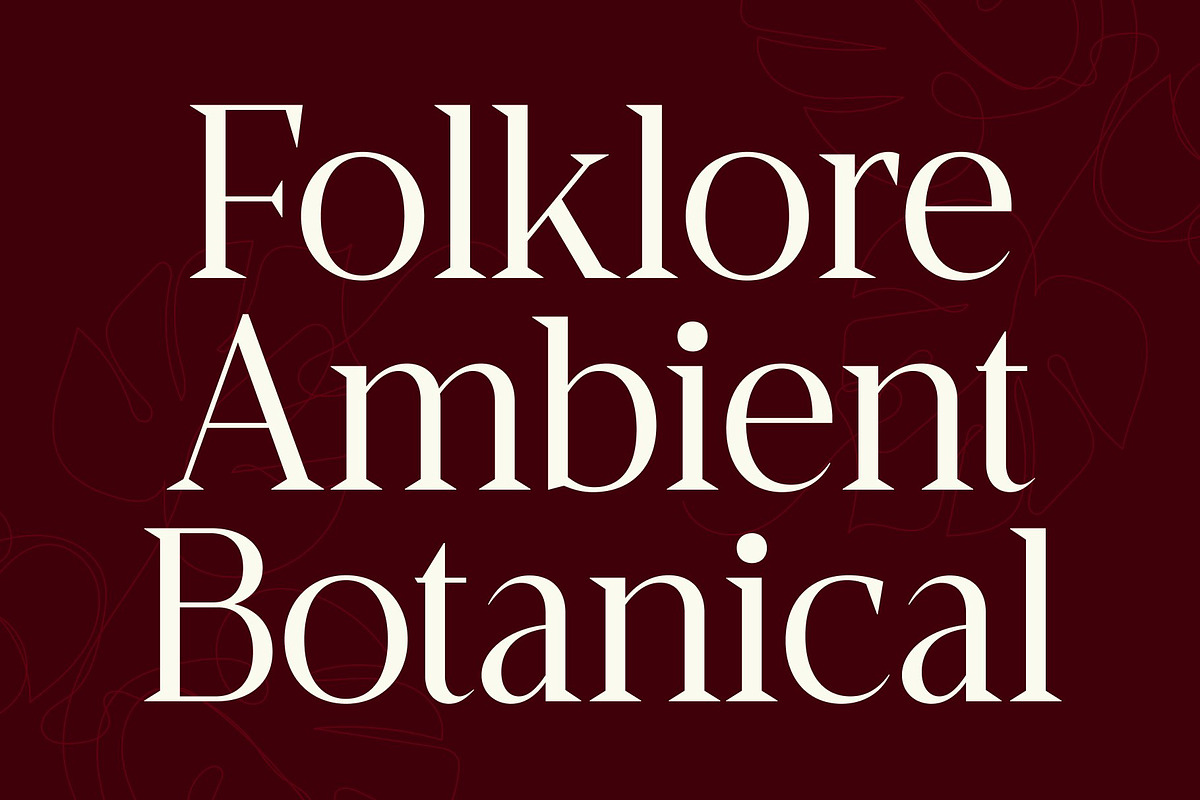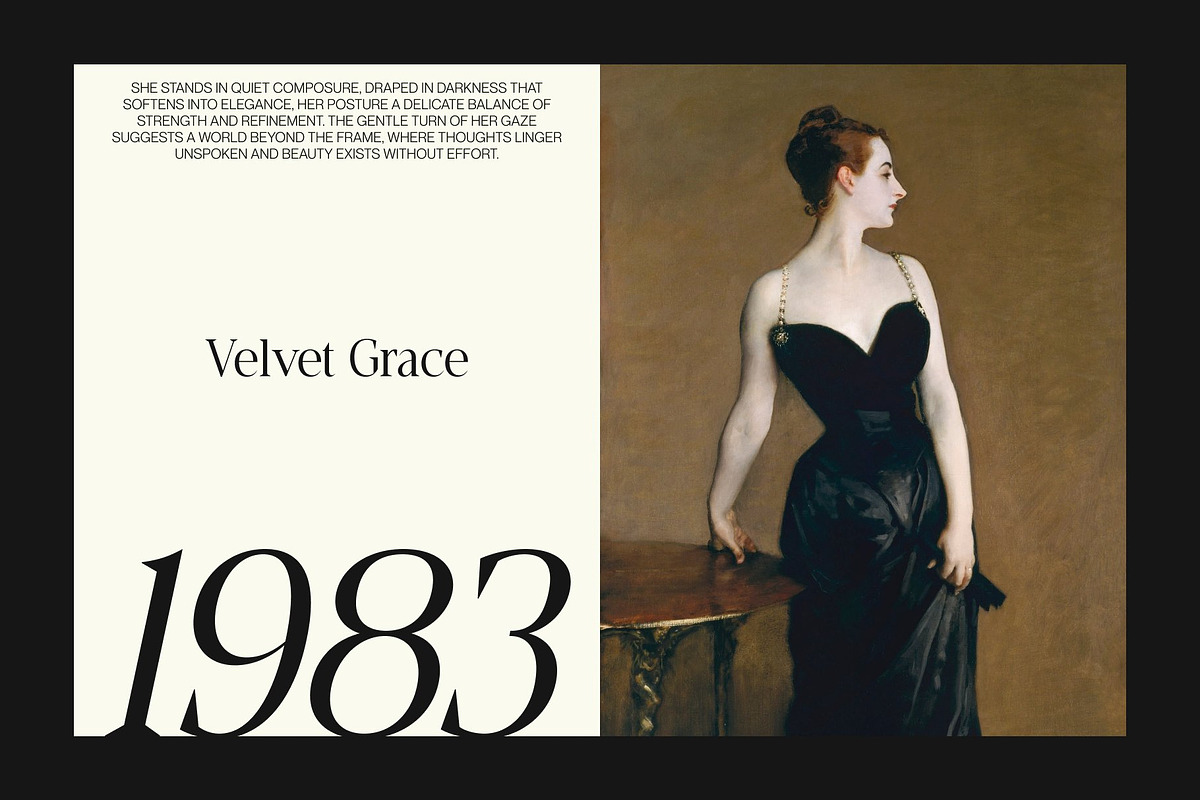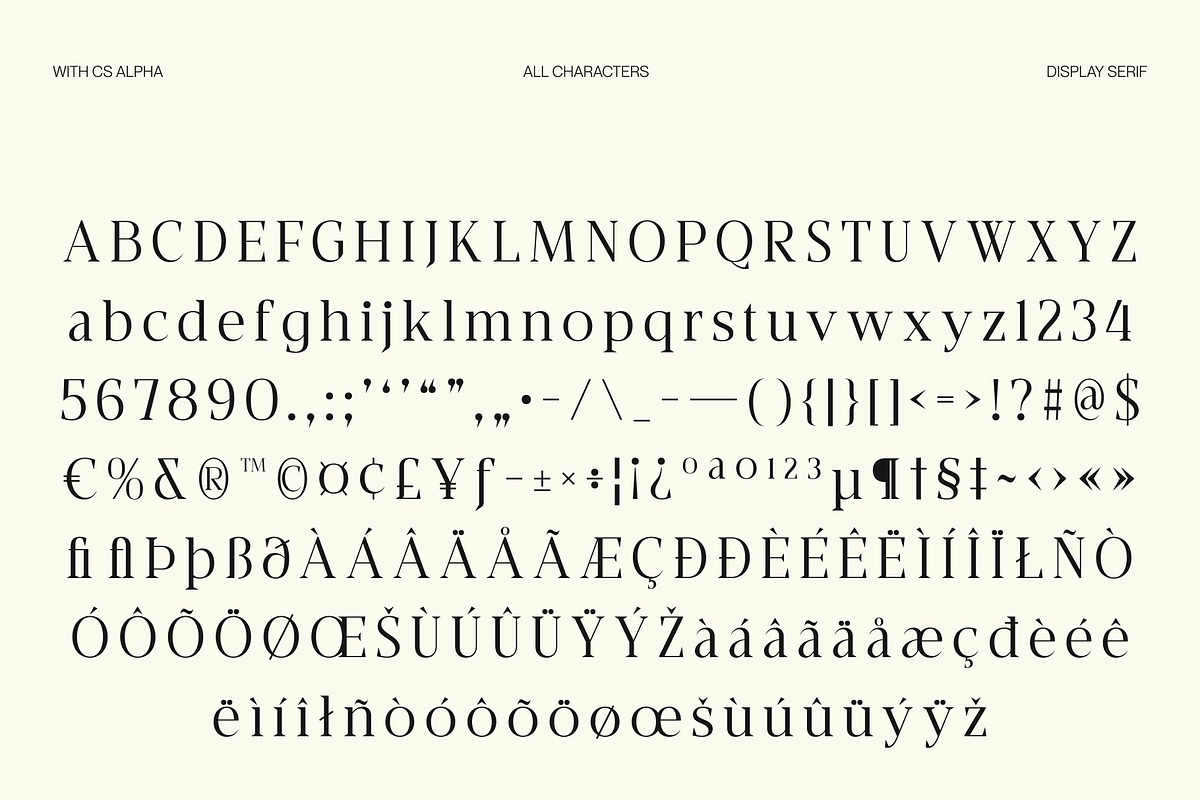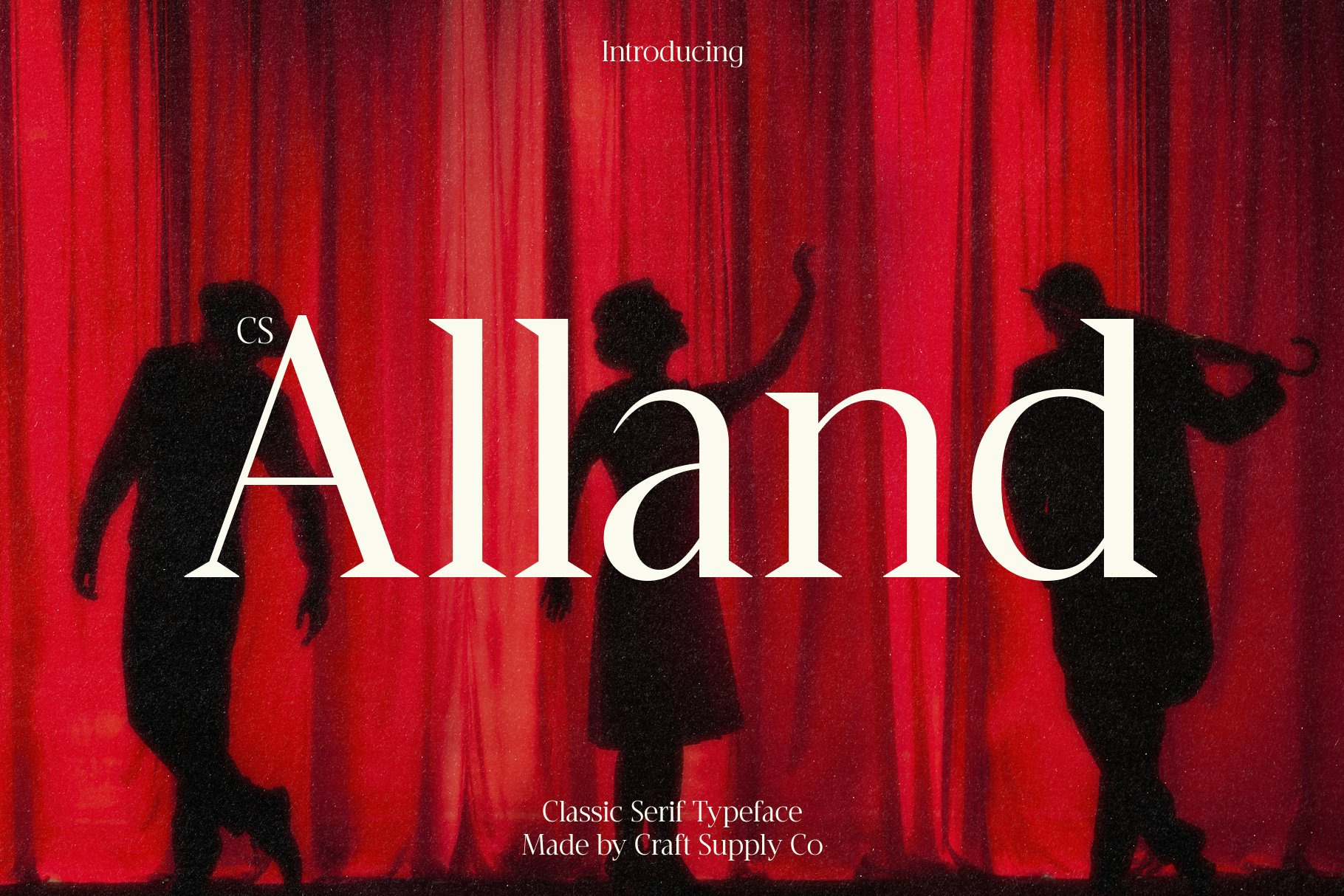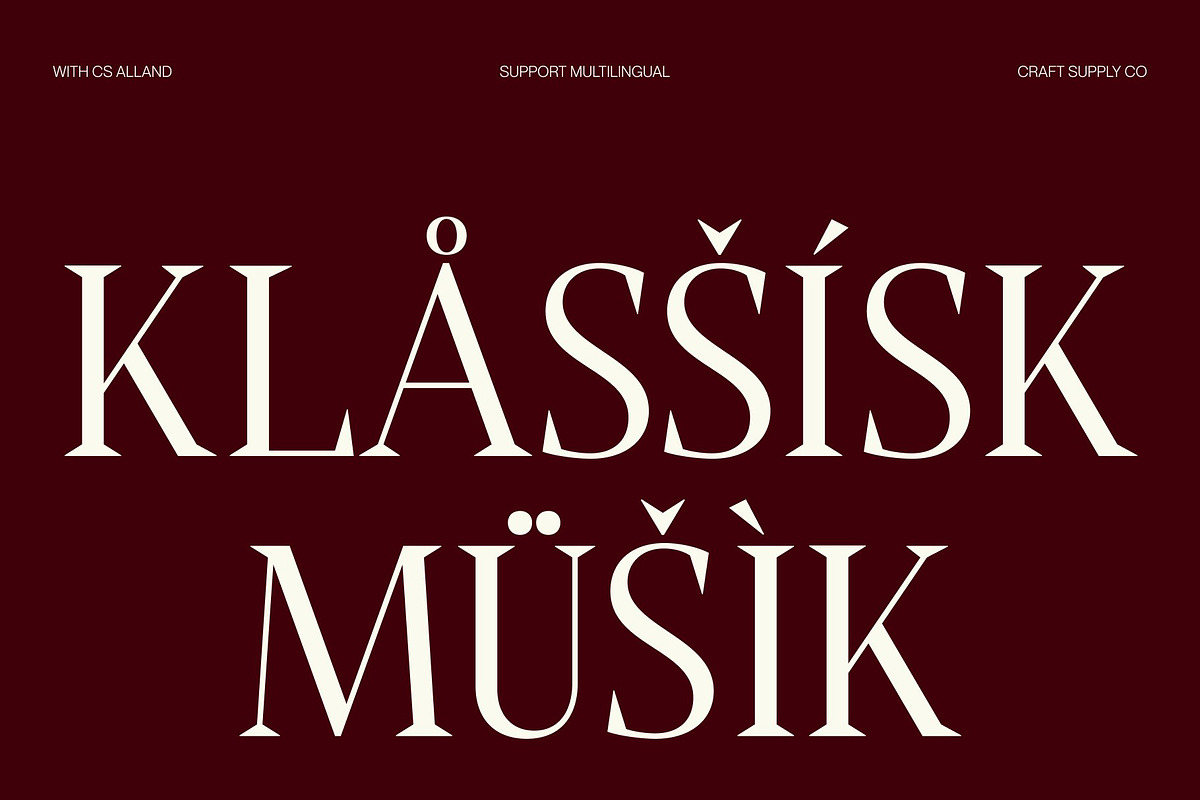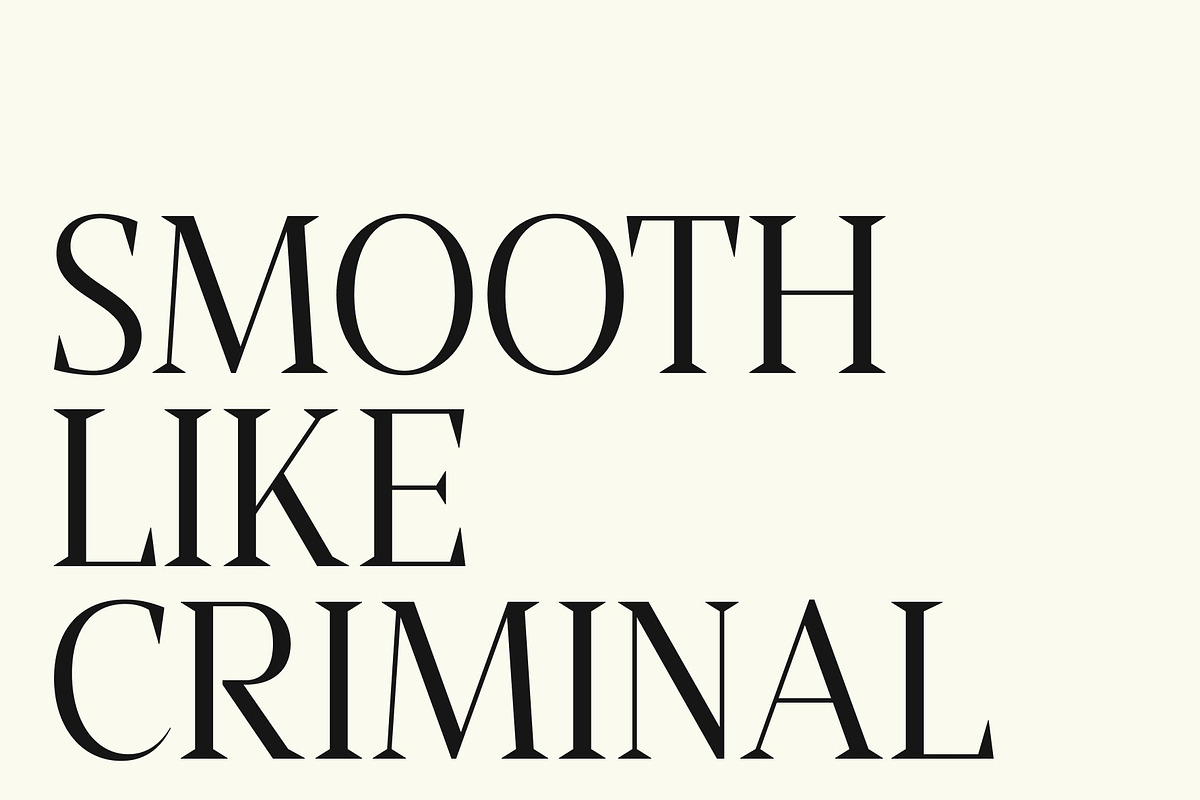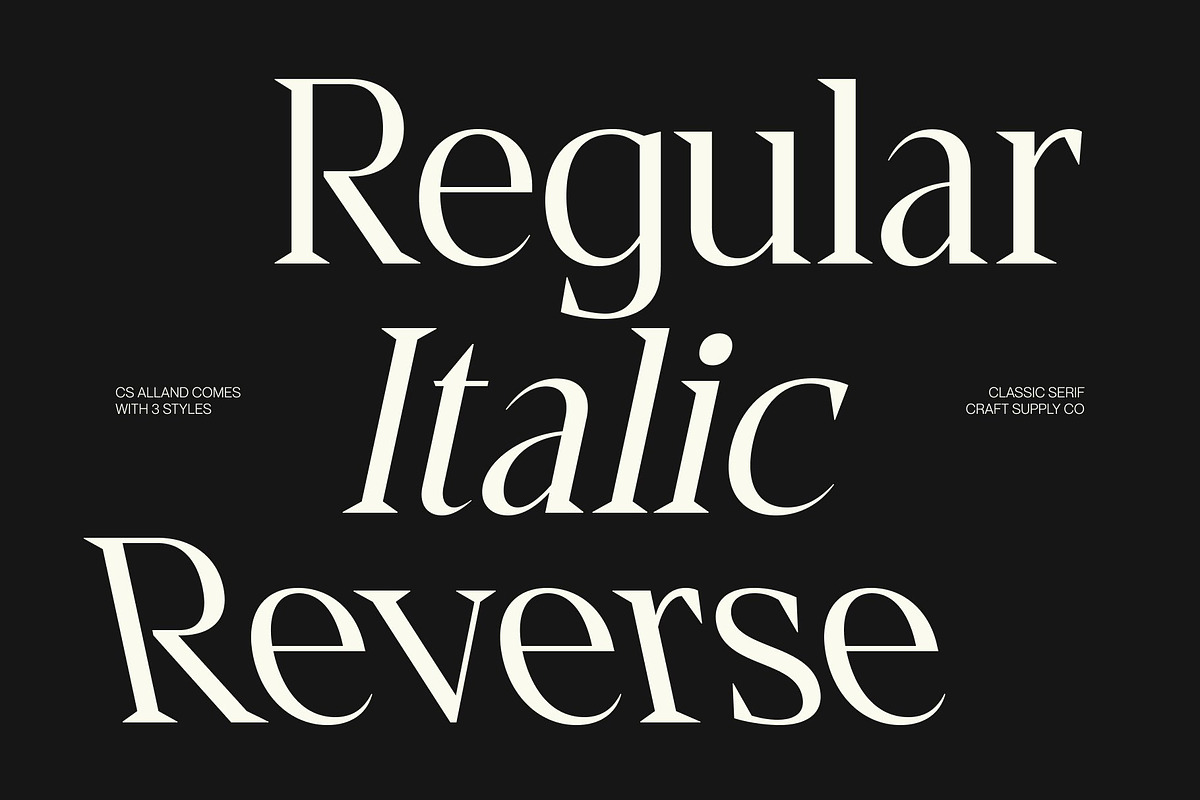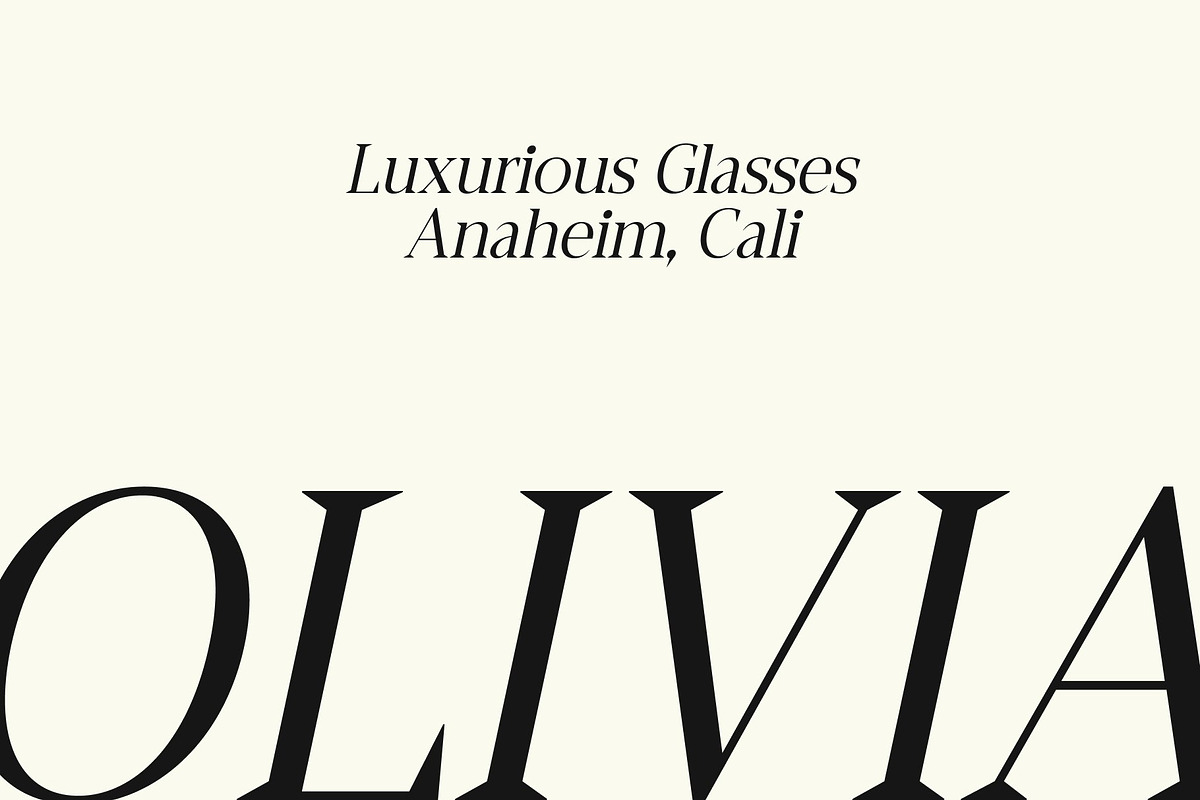
CS Alland – Classic Serif Font
CS Alland – Modern Classic Serif Font: Where Elegance Meets Contemporary Refinement
Modern Classic Serif Font This is a modern classic serif font defined by its long, slender serifs and clean contemporary structure. It blends traditional serif sophistication with modern precision, creating a refined typographic voice that feels both timeless and fresh. The result is a luxurious visual tone that elevates any design with subtle authority and graceful balance.
Elegant Long Serif Structure The font features elongated, delicate serifs that enhance its elegant rhythm and visual flow. These refined details add a sense of high-end craftsmanship, making this font perfect for luxury-focused design work. Each character is carefully shaped to maintain harmony and readability while delivering a distinctive premium feel.
Clean Contemporary Construction This font embraces a clean and modern construction that strips away unnecessary ornamentation while preserving classic serif beauty. Its balanced proportions and smooth curves create a contemporary aesthetic that works seamlessly across both print and digital platforms, ensuring versatility without losing sophistication.
High-End Branding and Editorial Versatility Designed for luxury branding, editorial layouts, posters, and refined visual identities, this font adapts effortlessly to a wide range of creative applications. Whether used for magazine headlines, fashion branding, or elegant packaging, this font delivers a strong sense of prestige and professionalism that elevates every composition.